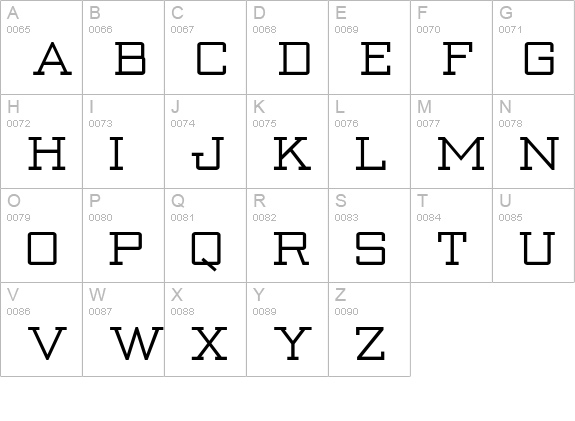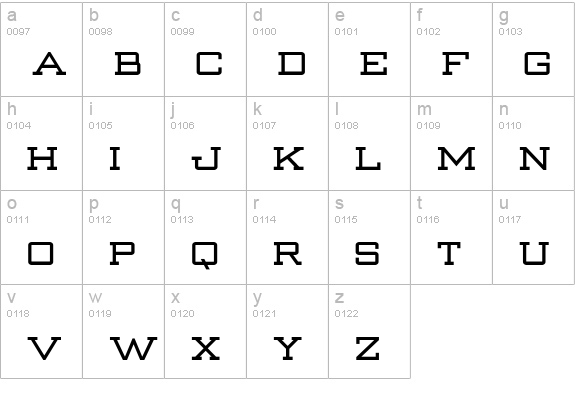
Strongman_Bold-Bold Font Details
Strongman_Bold-Bold is a strong, high-contrast variant in the Strongman_Bold typeface family \xE2\x80\x94 well suited to headlines, attention-grabbing titles, and strong calls-to-action.
Introducing Strongman_Bold-Bold font, a powerful and commanding typeface that exudes strength and confidence. With its bold and impactful design, this font is perfect for making a statement and grabbing attention. Whether you're working on a poster, logo, or branding project, Strongman_Bold-Bold font will help you stand out from the crowd. And the best part? Strongman_Bold-Bold font is available for free download at FontsMarket.com. So, unleash your creativity and elevate your design projects with this striking and versatile font. Don't miss out on the opportunity to add Strongman_Bold-Bold font to your font collection today!